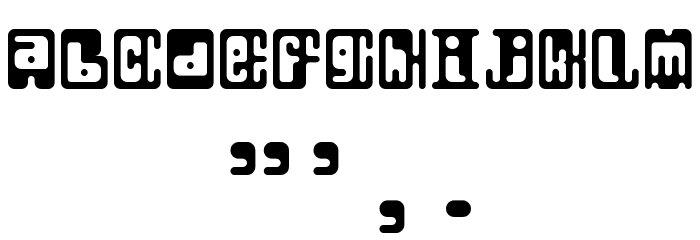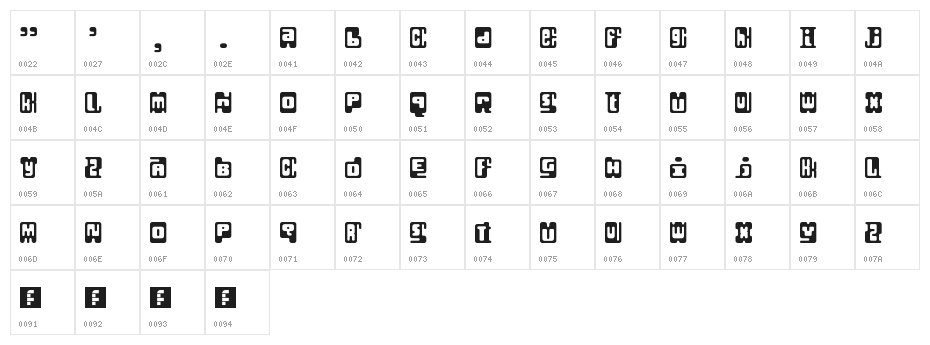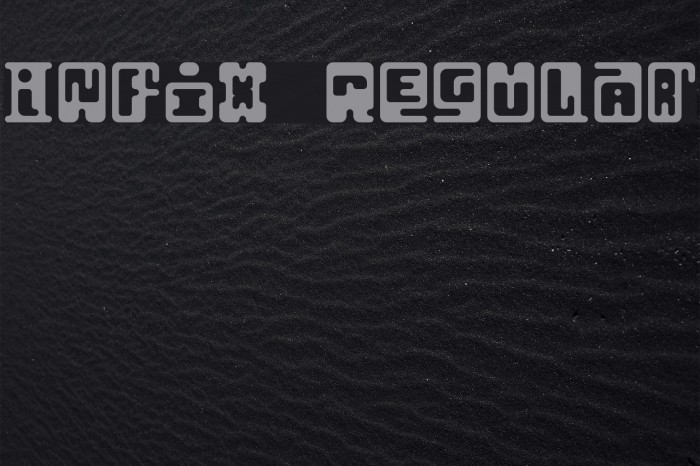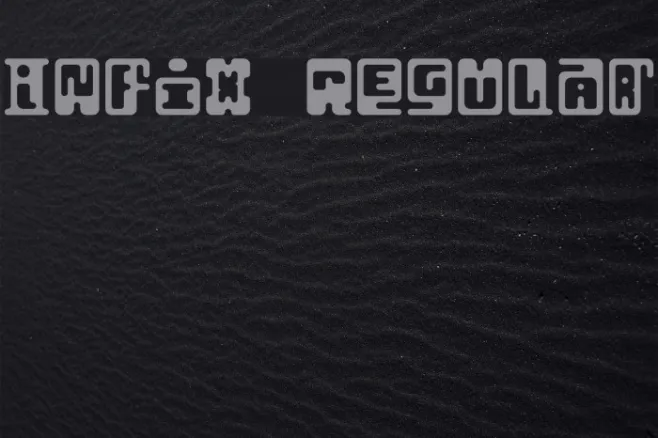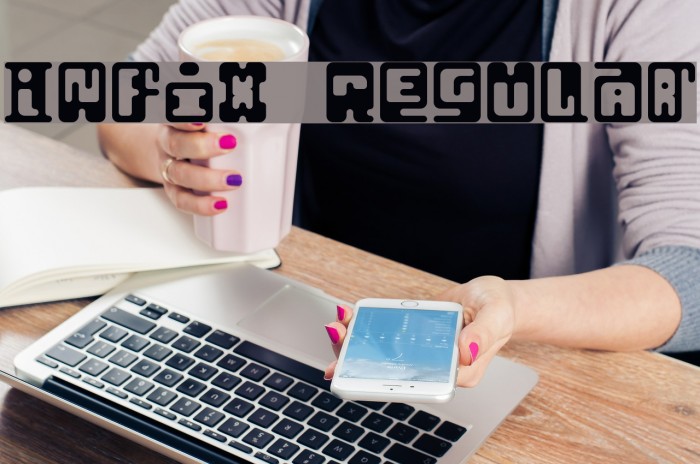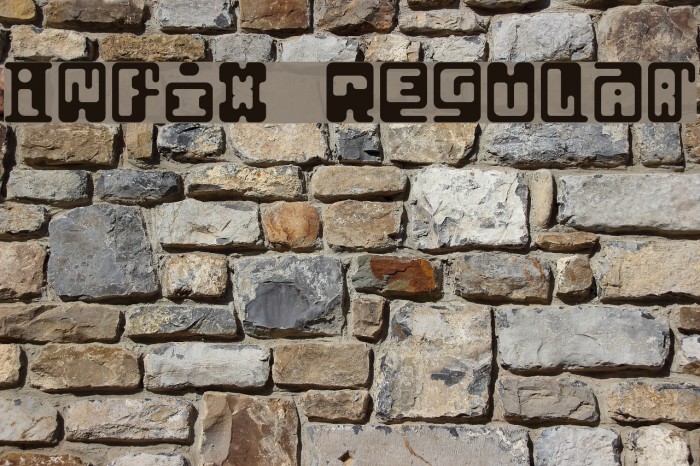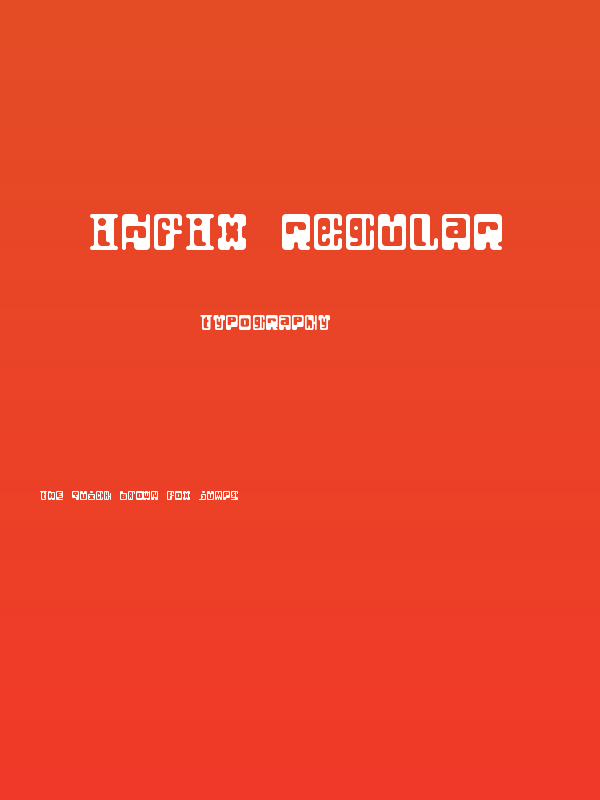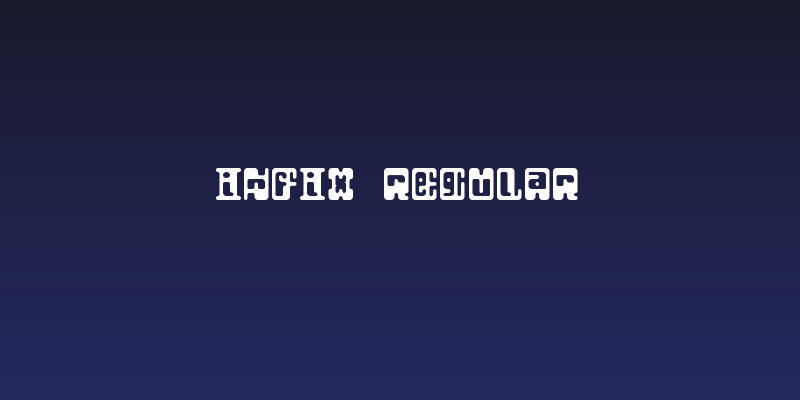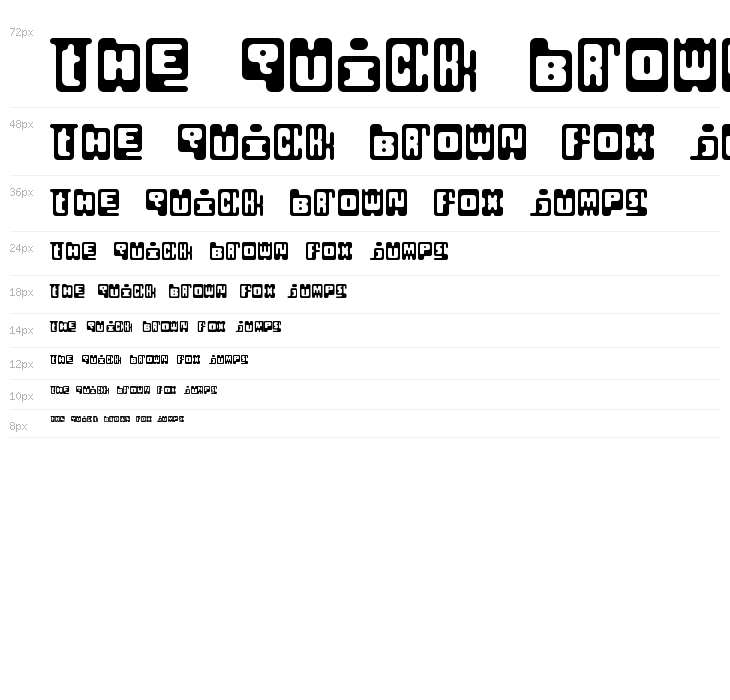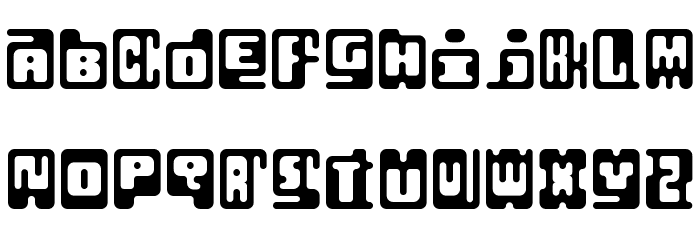
Infix Regular Font
This font features a bold and playful design with a distinctly modern and decorative style. The characters are enclosed in block-like shapes, giving them a unique and eye-catching appearance. The letters have a high contrast between thick and thin strokes, which adds to their visual impact. The overall design is quite geometric, with rounded edges that soften the look. This font is particularly suited for creative projects that require a standout typeface. The character spacing is relatively tight, which enhances the compact and cohesive feel of the text.
Overall StyleModern, Decorative
Proposed ProjectsIdeal for posters, logos, branding, and any project needing a bold, creative touch.